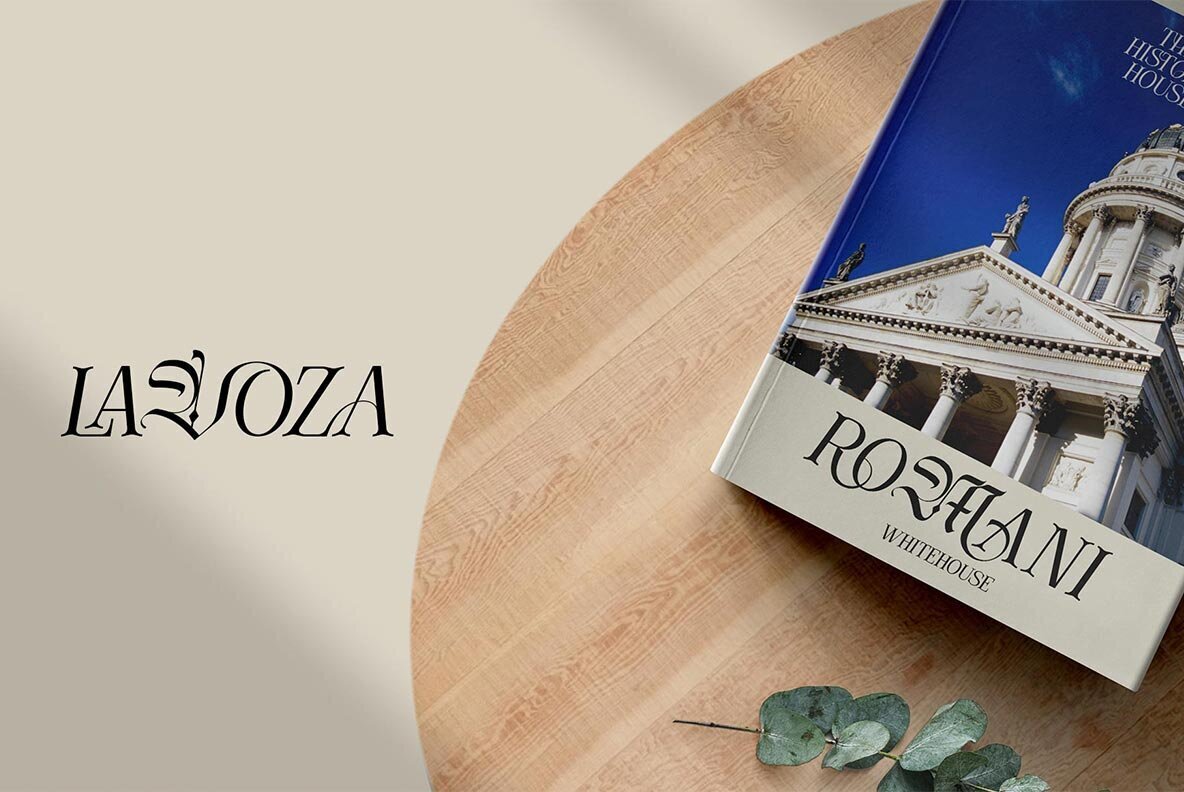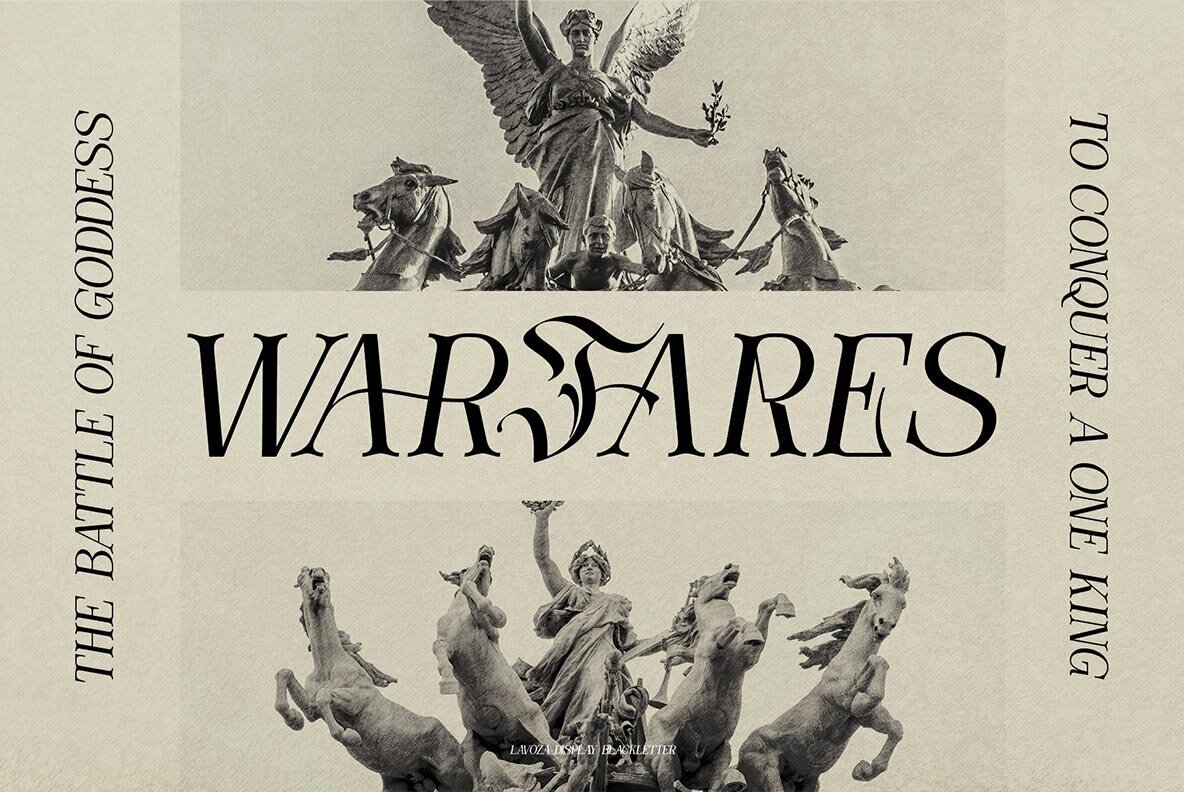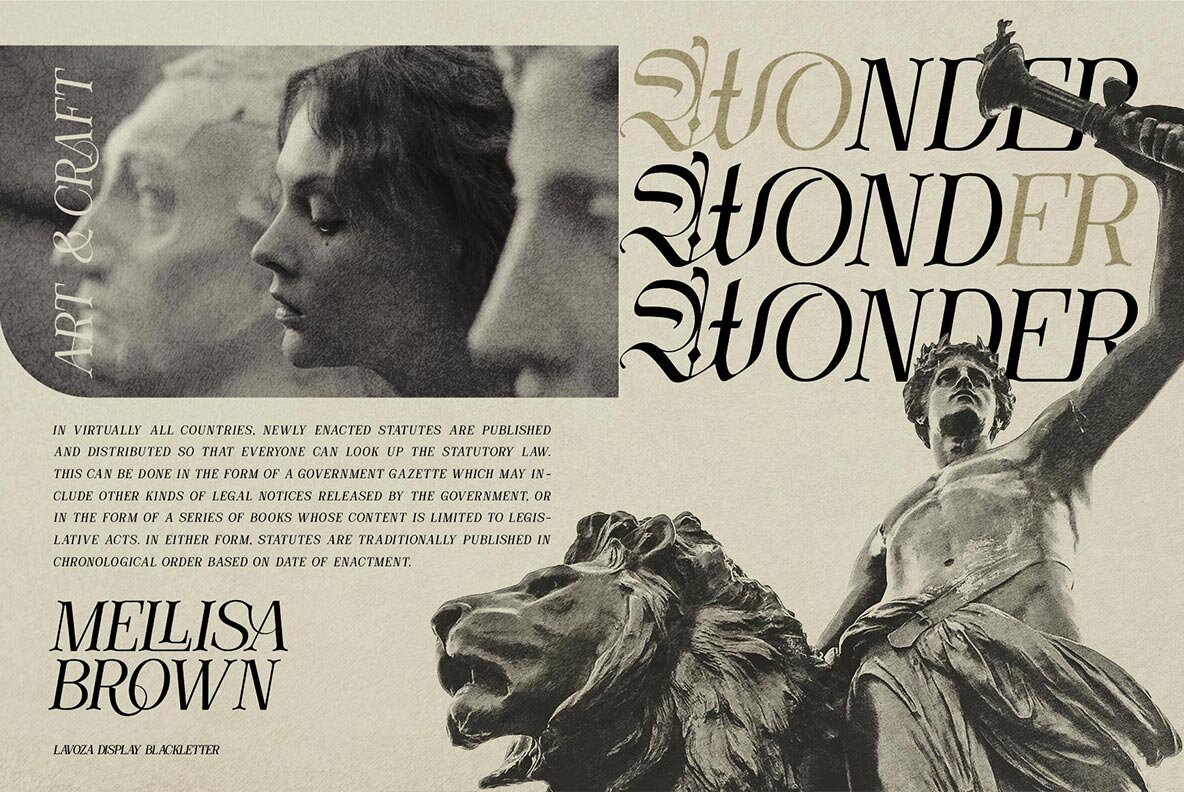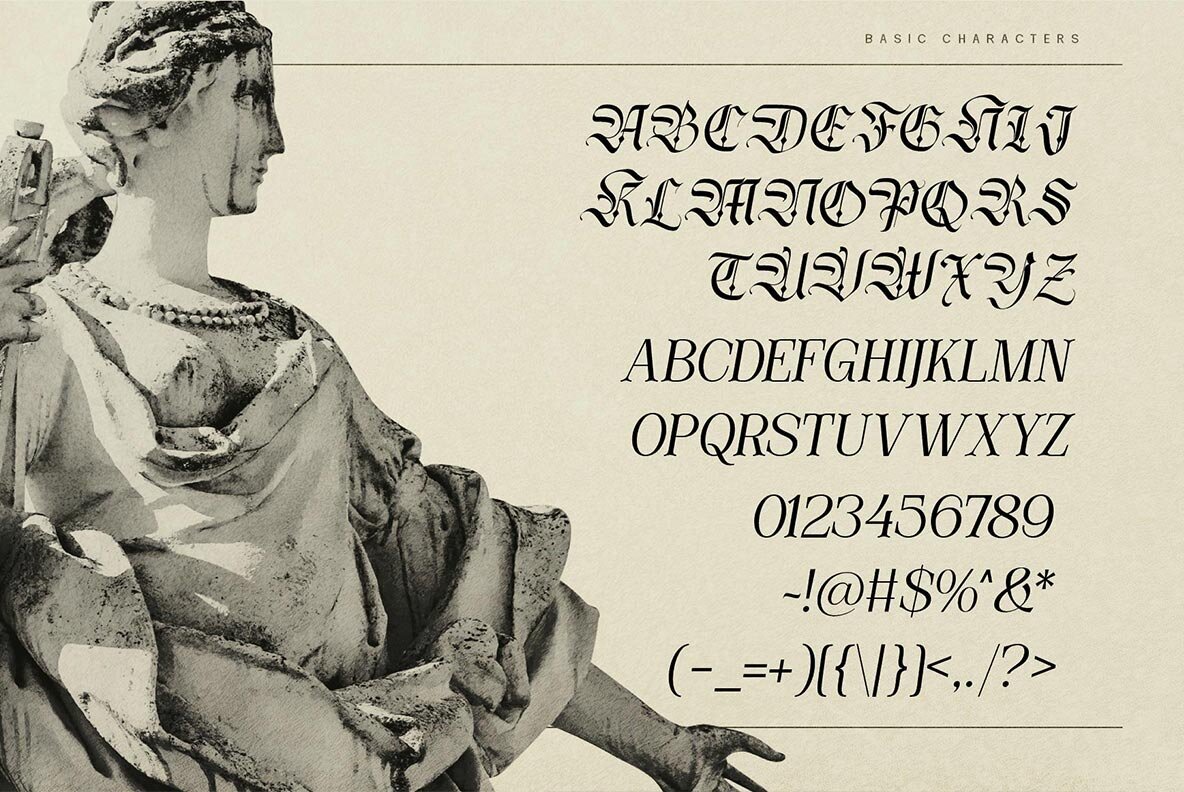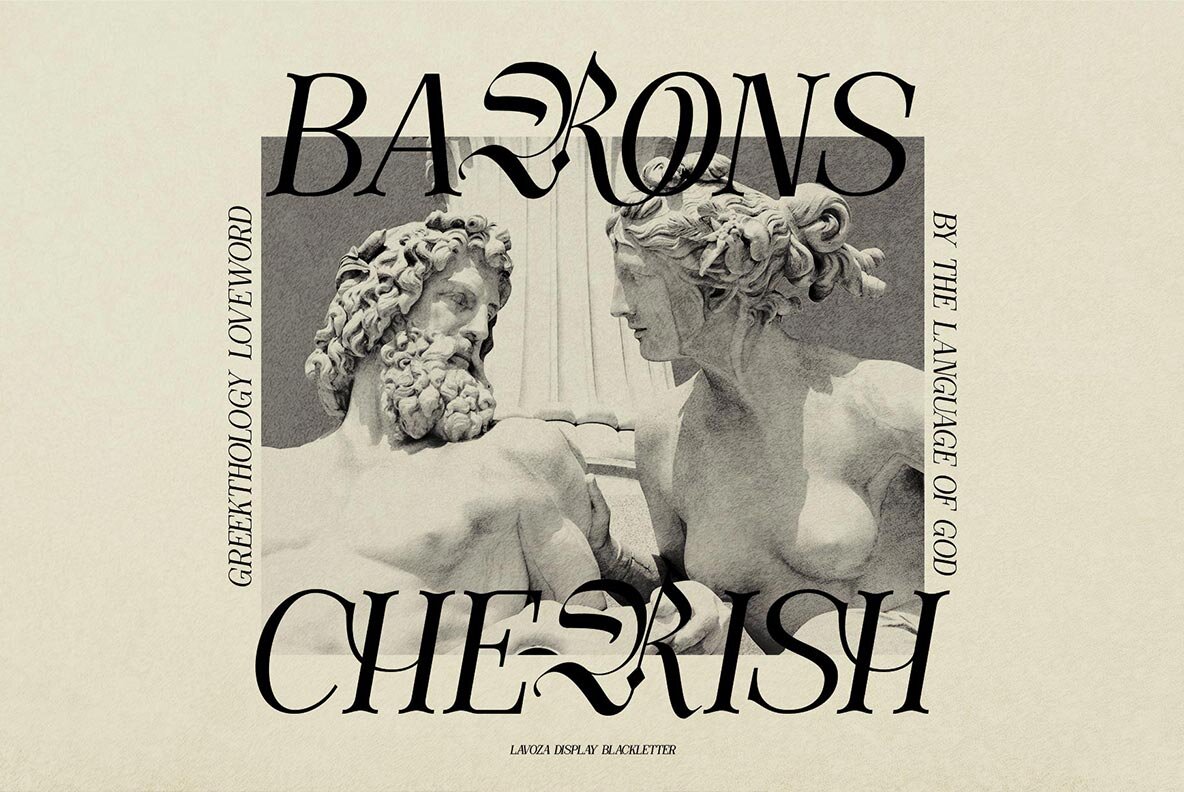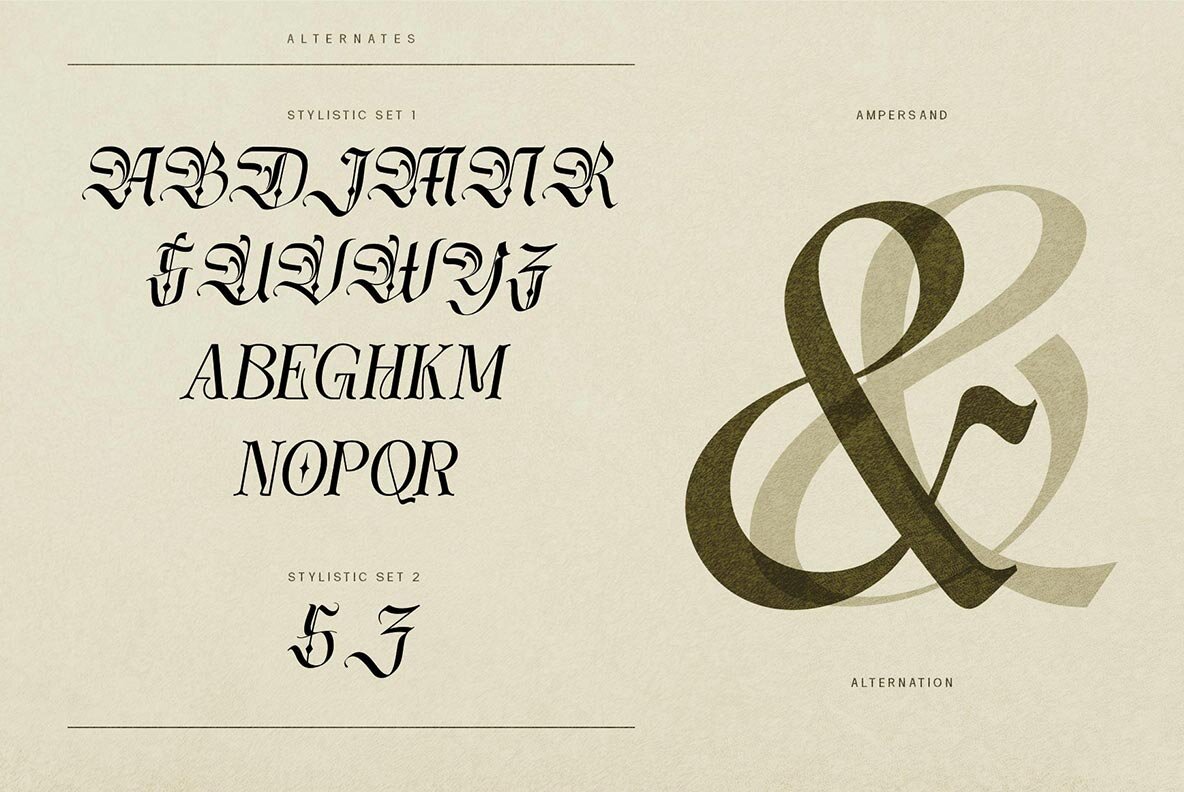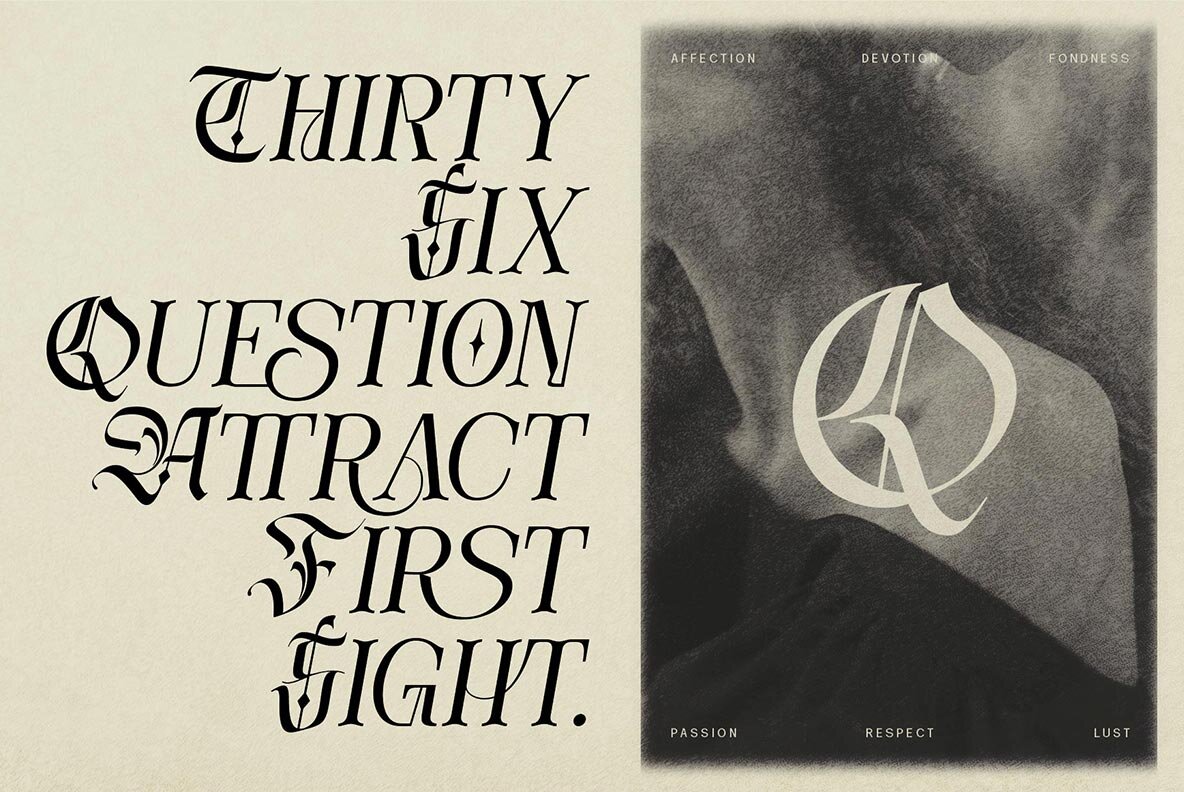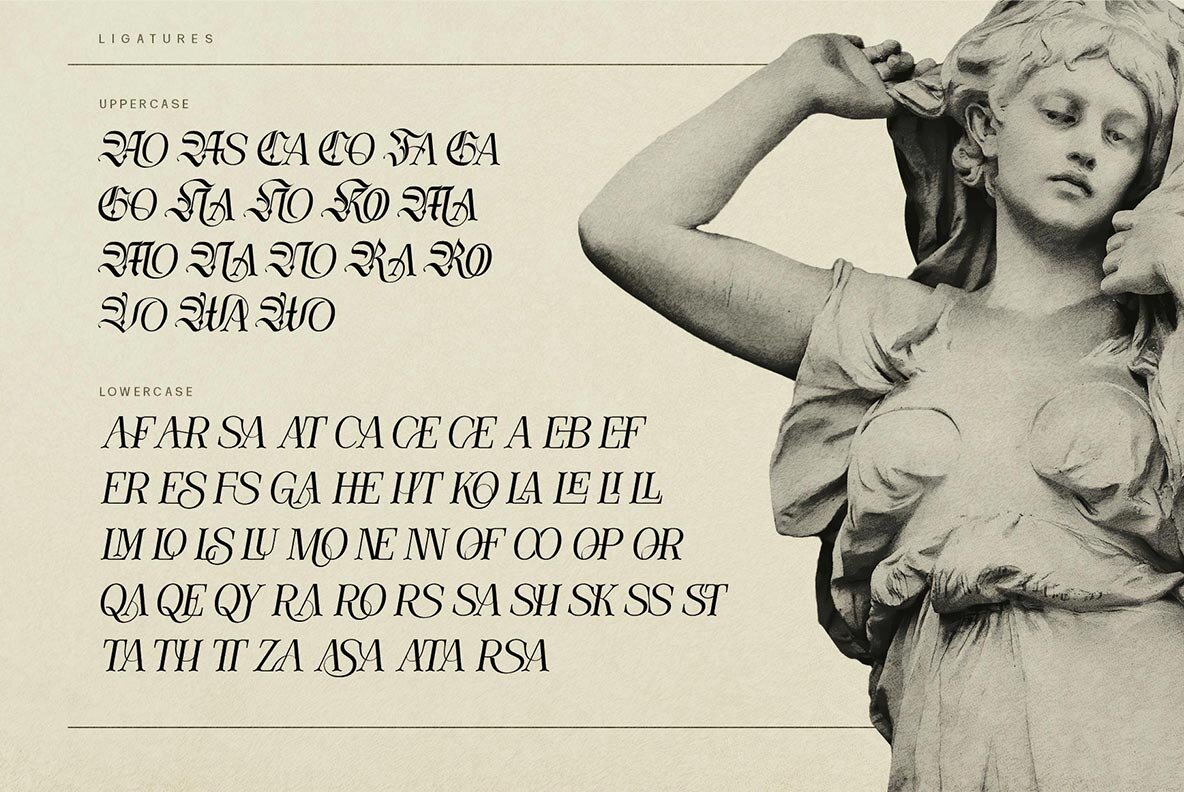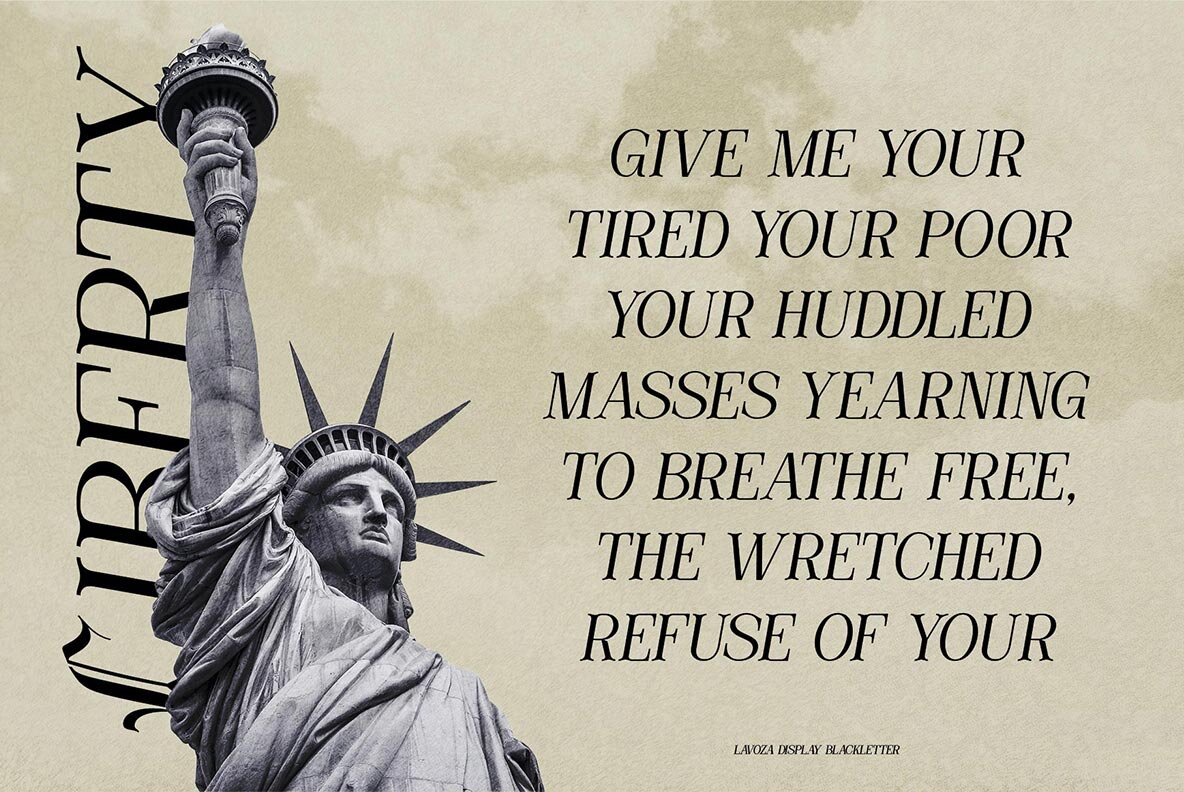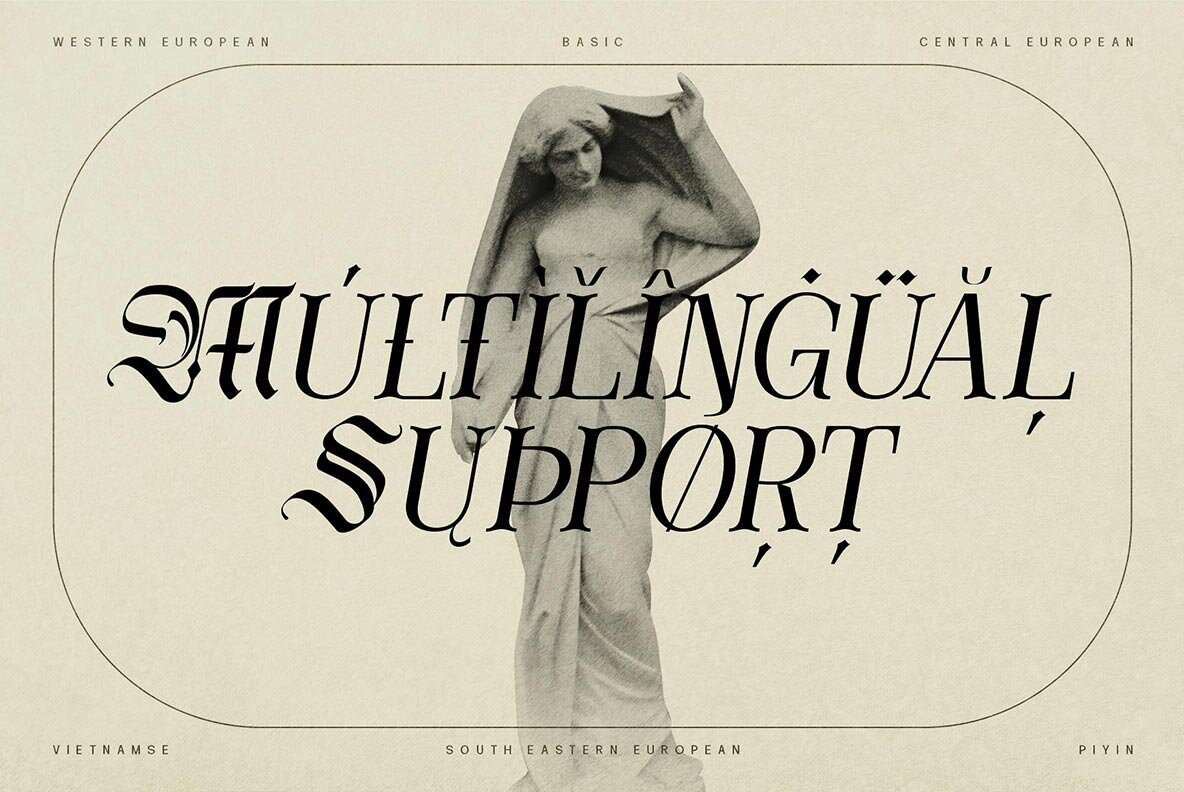
Lavoza Font
Lavoza Regular
Lavoza is a bold, modern font that will make your design stand out from the rest. This combination of serif and blackletter styles gives it an elegant feel with some roughness mixed in for good measure - just like today's trending template designs!
Lavoza is a great choice for magazine covers, brochures and other print material.